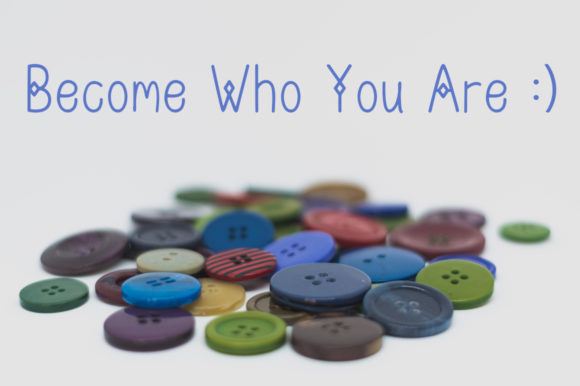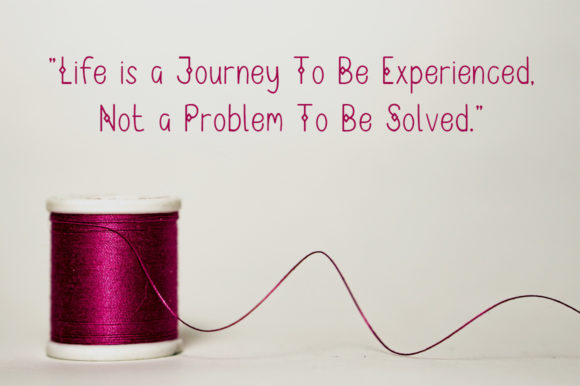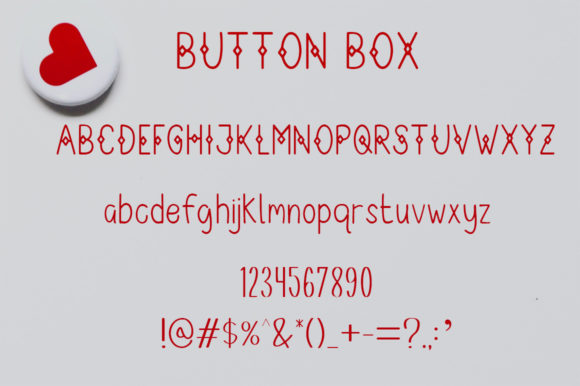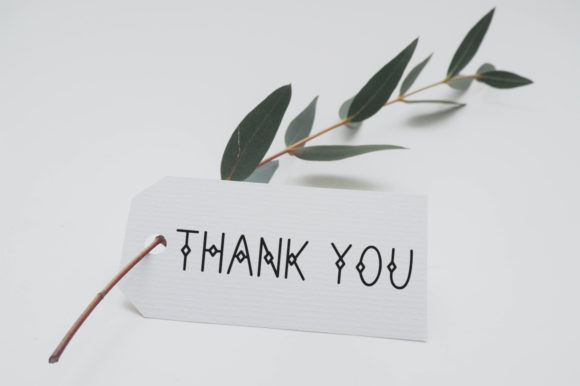
The Font that Stole My Heart: A Deep Dive into Button Box Font
I still remember the day I stumbled upon Button Box Font while working on a project for a client who needed a unique, eye-catching title for their branding campaign. I had been searching for what felt like hours, trying out font after font, but nothing seemed quite right. That was until I saw Button Box – its tall, slender letters immediately caught my attention, and I knew I had found the one.
As I started experimenting with Button Box, I realized just how versatile it was. From bold headings to elegant titles, this font seemed to adapt to any context I threw at it. In this article, I want to share with you why I’m so obsessed with Button Box Font, and how you can make the most of it in your own design projects.
An Honest Review of Button Box Font
What I Love About Button Box ✨
• ✅ Simple yet distinctive design: Button Box has a clean, uncluttered look that makes it perfect for titles, headings, and other display text.
• ✅ Friendly feel: Despite its simplicity, Button Box has a warm, approachable vibe that makes it suitable for a wide range of projects, from playful crafts to professional branding.
• ✅ Versatility: Whether you’re designing a logo, creating a social media graphic, or crafting a beautiful journal page, Button Box adapts effortlessly to different contexts.
While Button Box is an amazing font, it’s not without its quirks. For example:
• ⚠️ Limited use for body text: Due to its tall, slender design, Button Box isn’t the best choice for long blocks of text. It’s best used for titles, headings, and other display text.
• ⚠️ Glyph support: While Button Box has a range of useful glyphs, it may not have every special character you need. Be sure to check the font’s capabilities before committing to a project.
The Story Behind Button Box Font
Button Box Font was designed with the intention of creating a simple, versatile font that could be used in a wide range of contexts. Its creator aimed to craft a font that was both elegant and approachable, making it perfect for designers, crafters, and creative hobbyists alike.
Author rangkaiaksara
Q: What makes Button Box Font so versatile?
A: Button Box Font’s simple yet distinctive design, combined with its friendly feel, makes it suitable for a wide range of projects, from playful crafts to professional branding.
Q: Is Button Box Font suitable for body text?
A: While Button Box Font is amazing for titles and headings, it’s not the best choice for long blocks of text due to its tall, slender design.